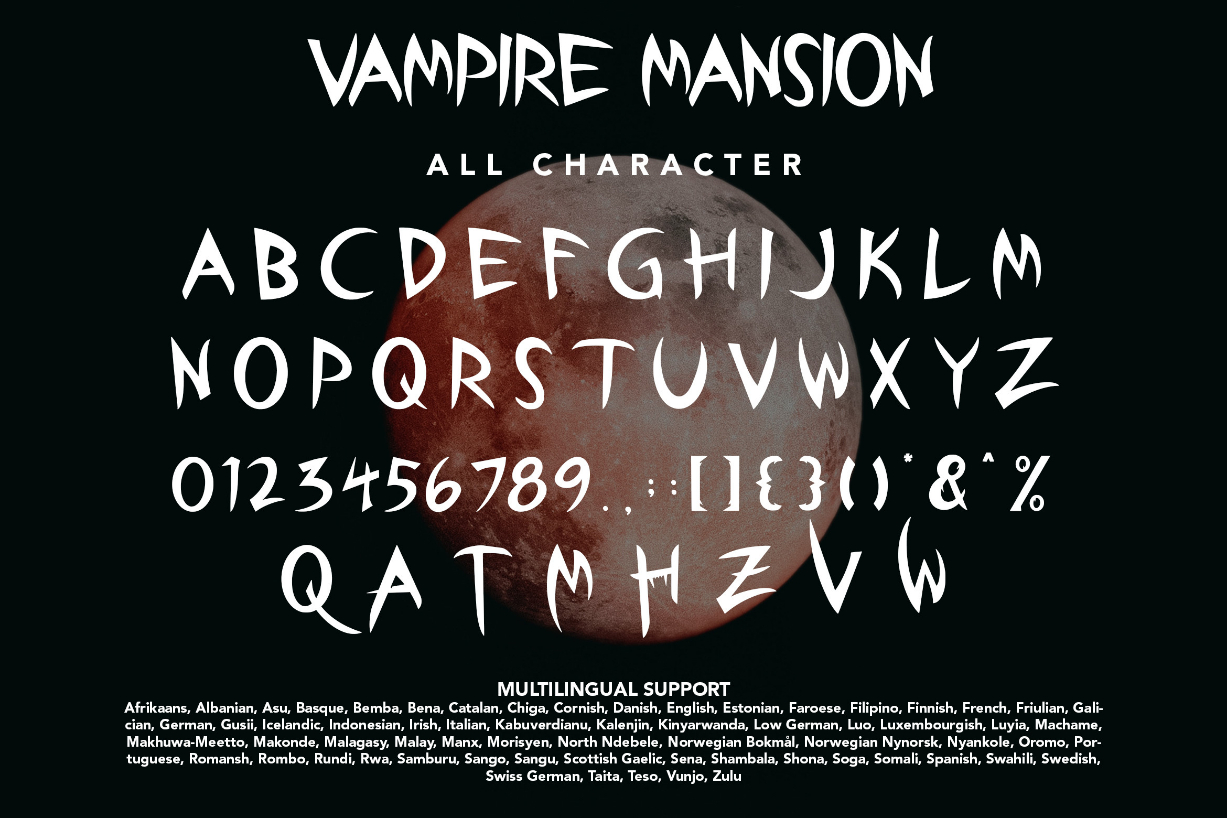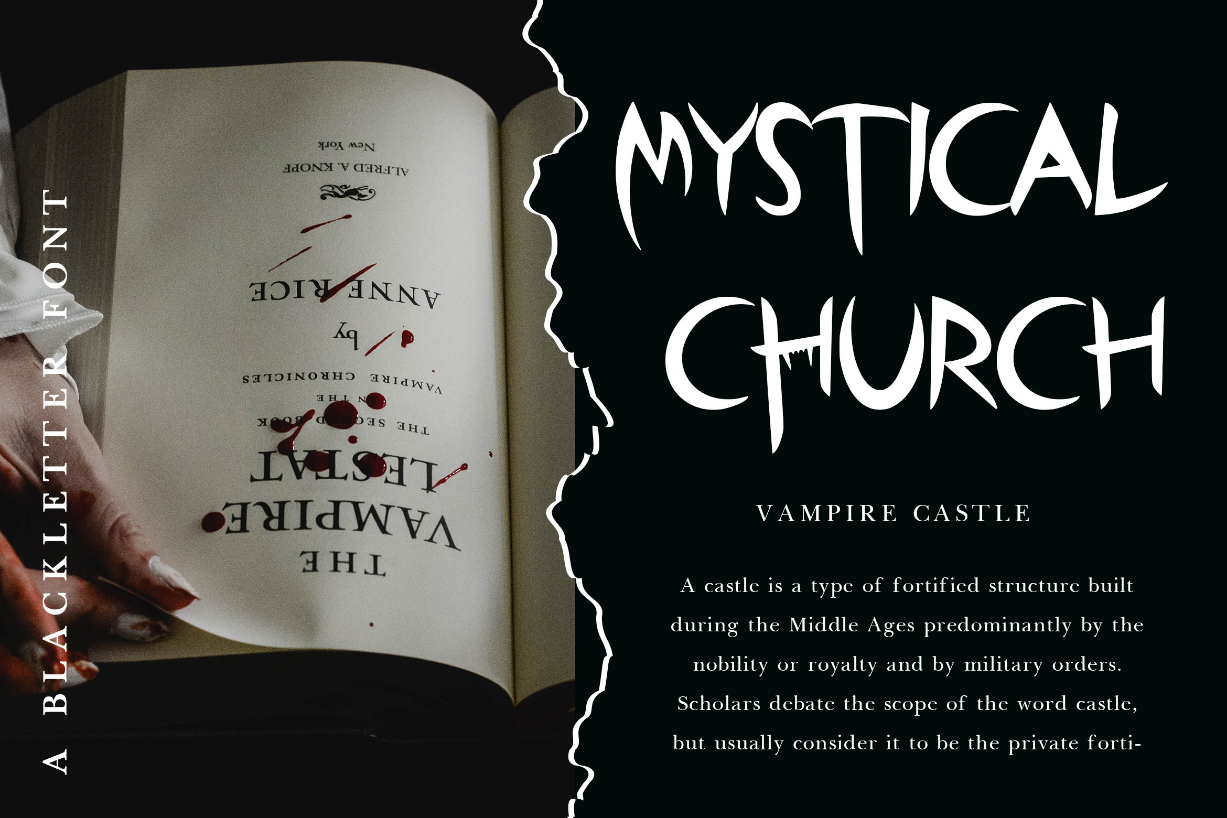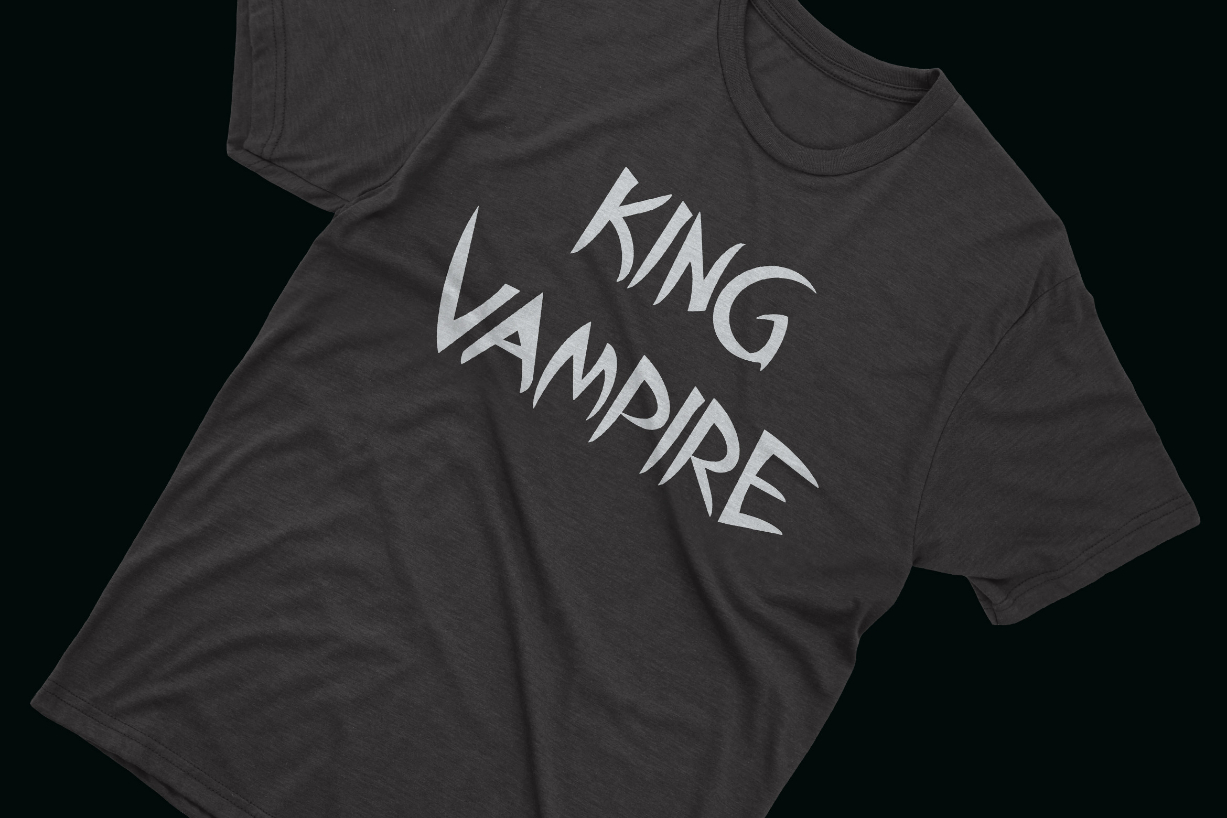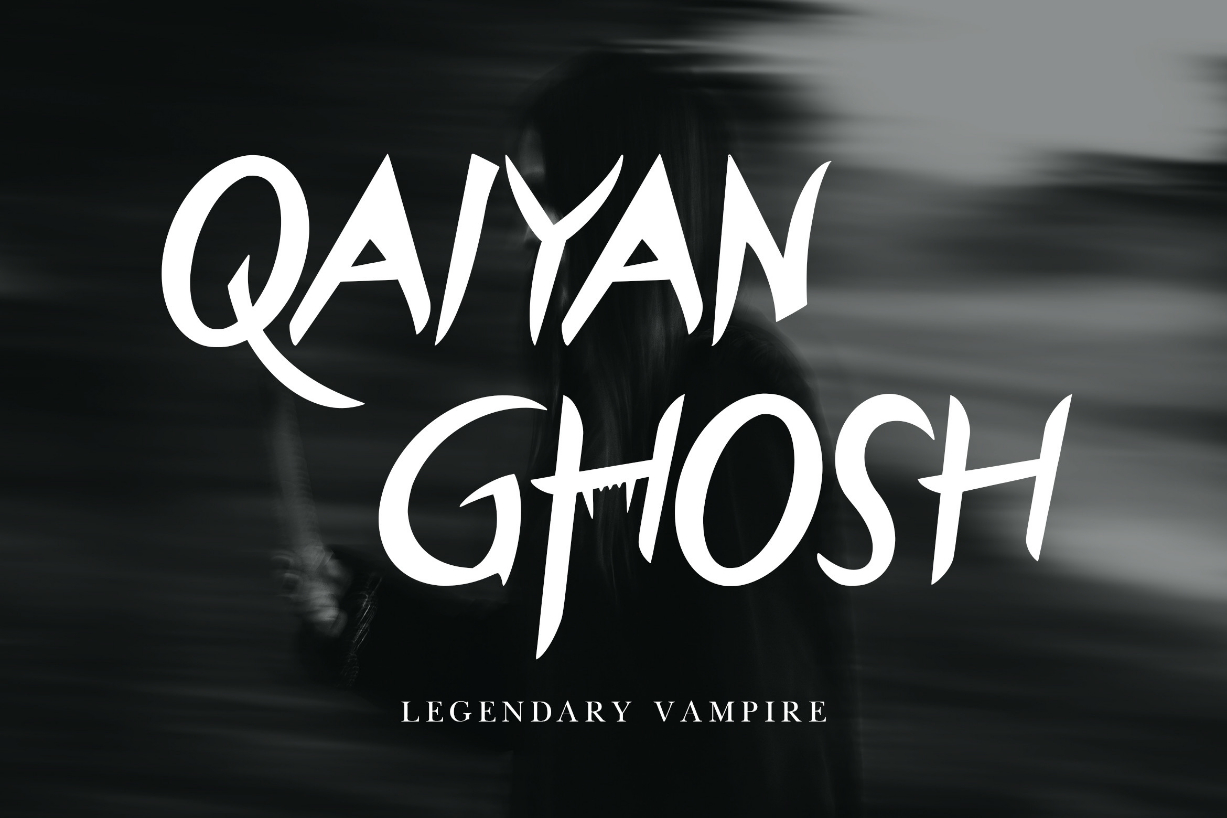
About Vampire Mansion Font
Vampire Mansion is a blackletter font inspired by gothic and horror styles. Because its shape is very unique, this font is perfect for any project or crafty idea related to this font’s theme.
Vampire Mansion is great for a logotype, poster, badge, book cover, T-shirt design, packaging, and more.